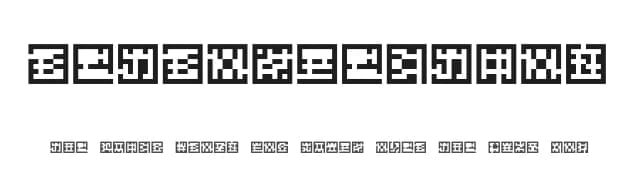
About Retrospection Font
This is the steganographic symbol font made for Studio369's puzzle submission to One Day One Puzzle Week 28. Thusly, this font contains potential spoilers for it.